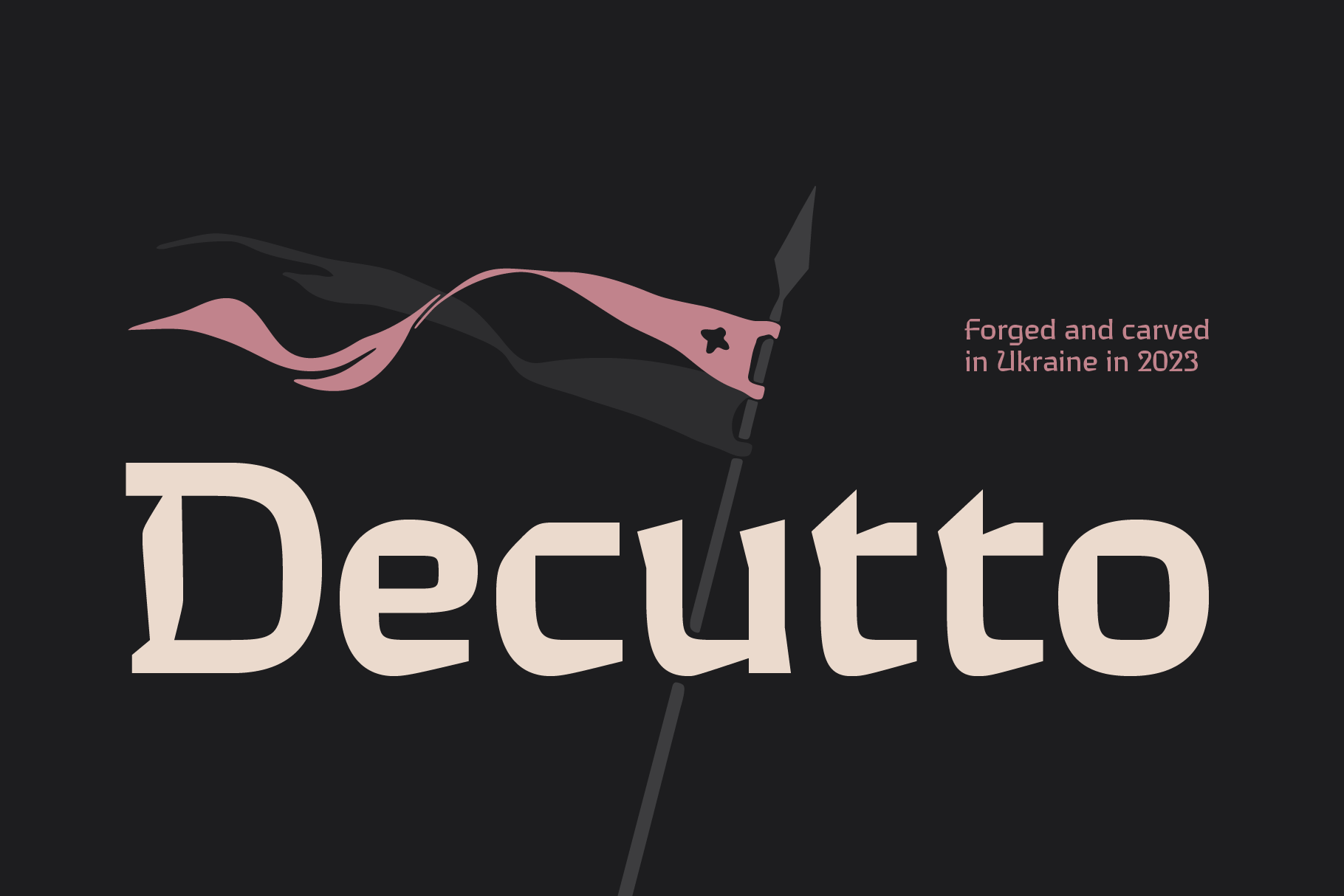
Decutto font
Decutto is a neo-grotesque that packs the Marionette formula and some blackletter ideas into a low-contrast sans serif design. Its name plays on the phrases “off cut” and “cut to” which express the key feature – the contemporary legible letter shape is decorated with cut carved edges and counters, giving the typeface crisp and simplistic look, like that of an old minted coin.
The letter shape has pronounces features of the William Dwiggins’ M-formula that makes the overall texture sharper and creates some visual contrast between the rounded outer black shape and the squared inner white counter shape. This simplification makes the text clear and sharp at a small body size and somewhat mannered at a heading size. The typeface also received some features of blackletter, such as diagonal calligraphic strokes in uppercases, a modest triangular serif in the upper left corner of lowercases, and thickening at the end of the ascenders and descenders.
Stylistic Set 02 “Sharp period”: All period symbols are replaced with its sharp alternate version rotated 45 degrees.
Stylistic Set 03 “Sans Serif Capitals”: ITUY capitals (and their versions with diacritical marks) lose horizontal serifs.
Stylistic Alternates: .1IÍĬǏÎÏİỊȈÌỈȊĪĮĨḬƗḮ TŤŢṰȚṪṬṮŦ UÚŰÙȔŬǓÛṶÜṲỤỦƯỨỰỪỬỮȖŪŲŮŨṴǗǙǛǕṺṸɄ YÝỲŶŸẎỴỶȲỸƳ бгдипт
Case conversion for monotonic Greek: ΆΈΉΊΌΎΏ. Greek uppercase accented characters lose their tonos accent and retain only dieresis in All Caps mode. Turned on by default. If you need tonos accents in All Caps then turn off Contextual Alternates (calt) feature.
Case Sensitive Forms: ()[]{}‹›«»-–—•·#%‰@ and Arrows are centered on capitals. Oldstyle figures are replaced with Lining figures.
Lining Figures: 0123456789 #%‰. Figures are the same height as uppercase letters (cap height). Used by default.
Oldstyle Figures: 0123456789 #%‰. Designed to work with lowercase letters.
Ordinals: adehnorst Superscript, Subscript, Numerator, Denominator: 0123456789
Fractions: ¼½¾⅐⅑⅒⅓⅔⅕⅖⅗⅘⅙⅚⅛⅜⅝⅞⅟ (precomposed). Any other fractions (even those typed through a slash) will also be displayed correctly, with the automatic replacement to Numerator + fraction + Denominator.
Slashed Zero: Lining and Oldstyle 0 figures are replaced with a dotted zero.
Discretionary Ligatures: Th
Localized Forms: 23 character substitutions for Azeri, Bulgarian, Catalan, Dutch, German, Kazakh, Macedonian, Moldavian, Polish, Romanian, Serbian, Tatar, Turkish.
Glyph Composition/Decomposition (Diacritics): Extended Latin and based Vietnamese set of diacritics (562 characters). Precomposed.
Mark Positioning: Diacritical marks positioned for Extended Latin and Hebrew characters.
Initial Forms: Feature required to process a shapes of the Arabic language.
Medial Forms: Feature required to process a shapes of the Arabic language.
Terminal Forms: Feature required to process a shapes of the Arabic language.
Required Ligatures: Feature required to process a shapes of the Arabic language.